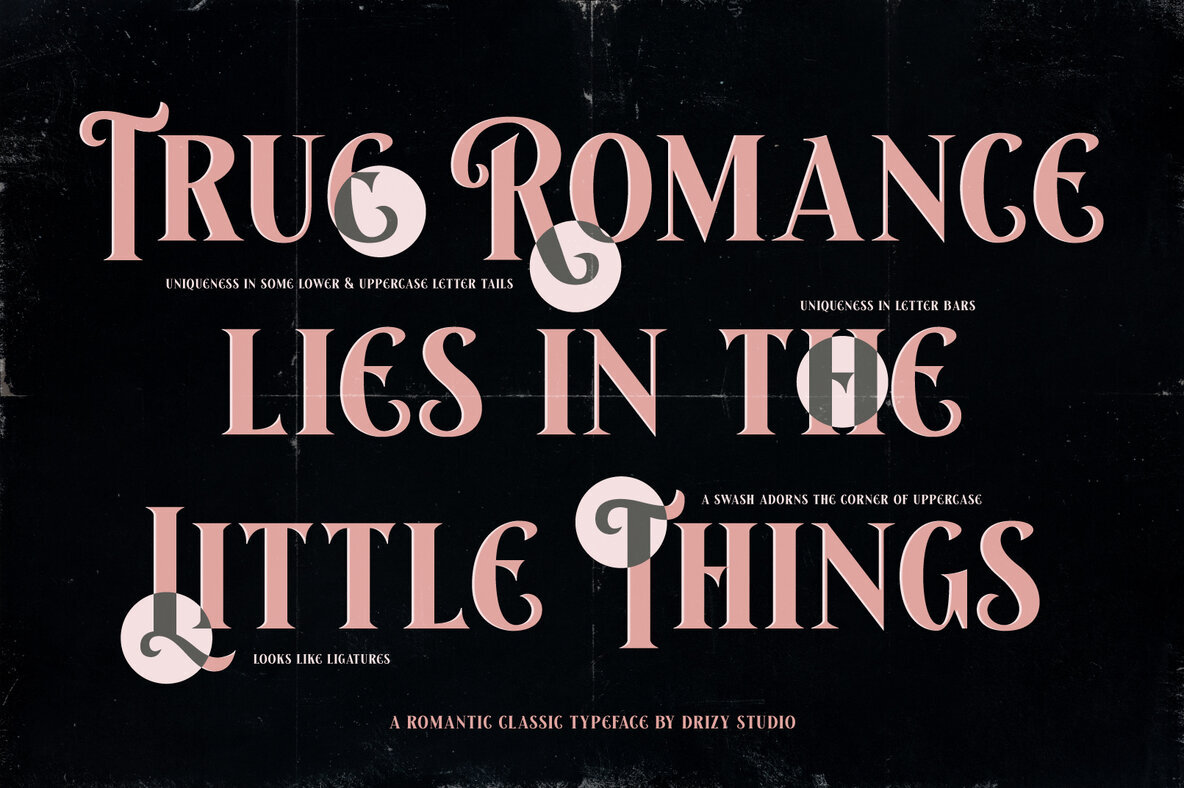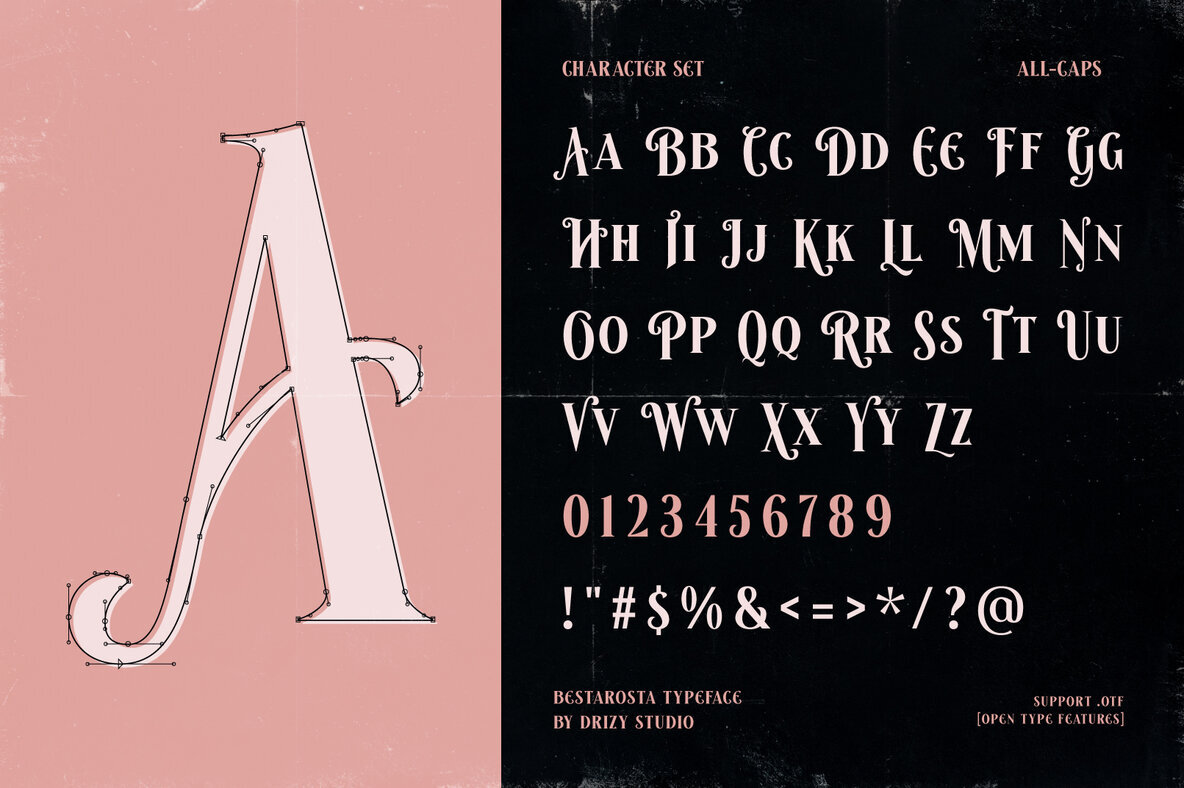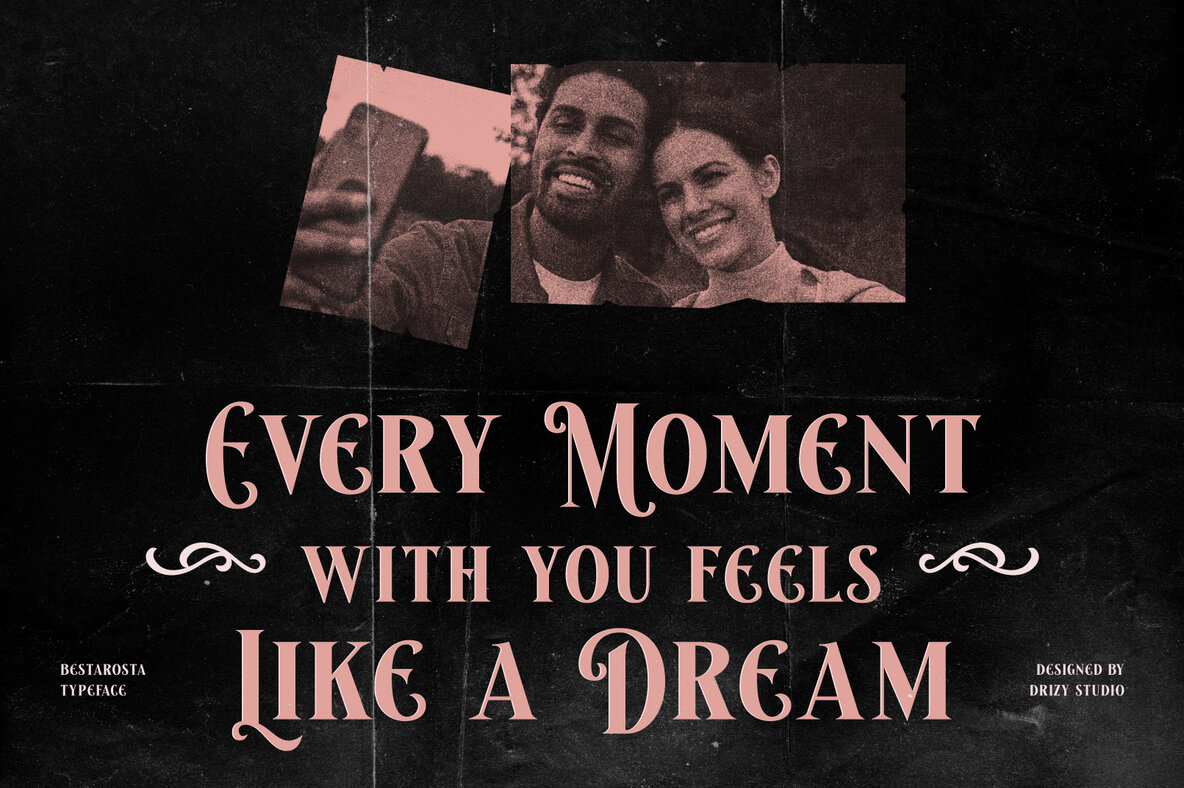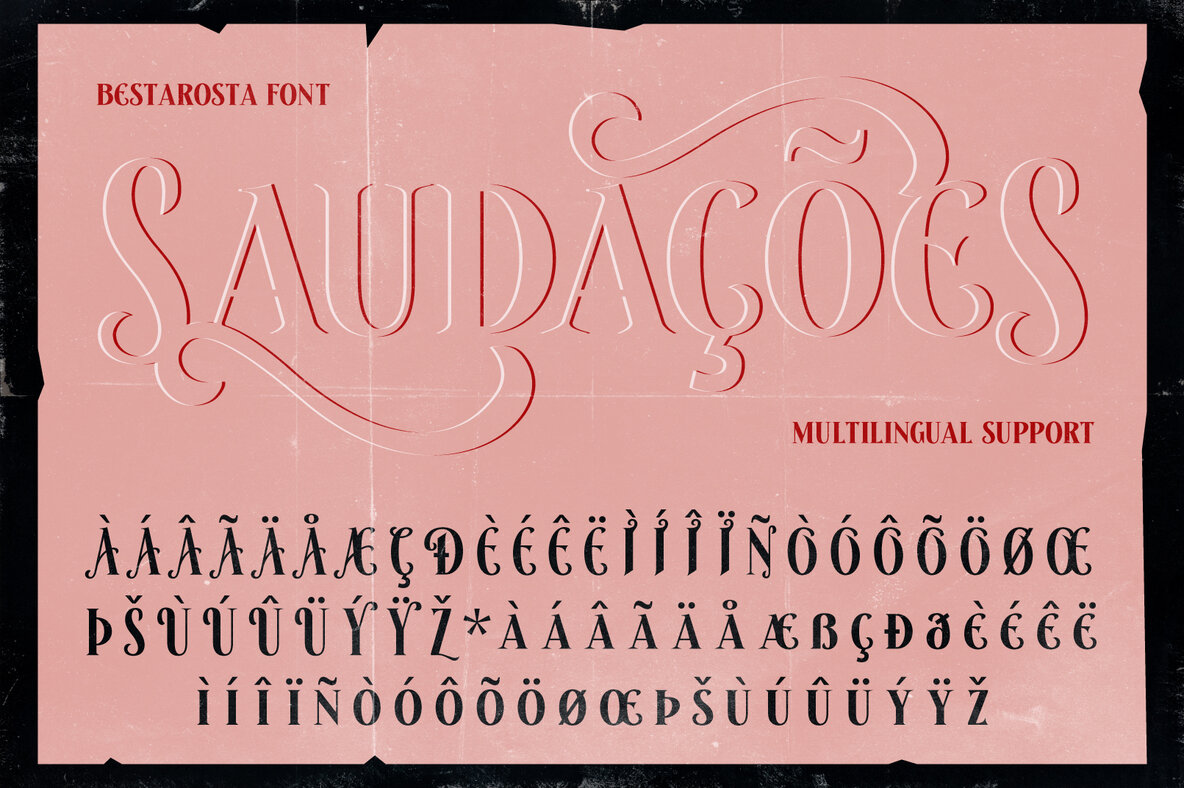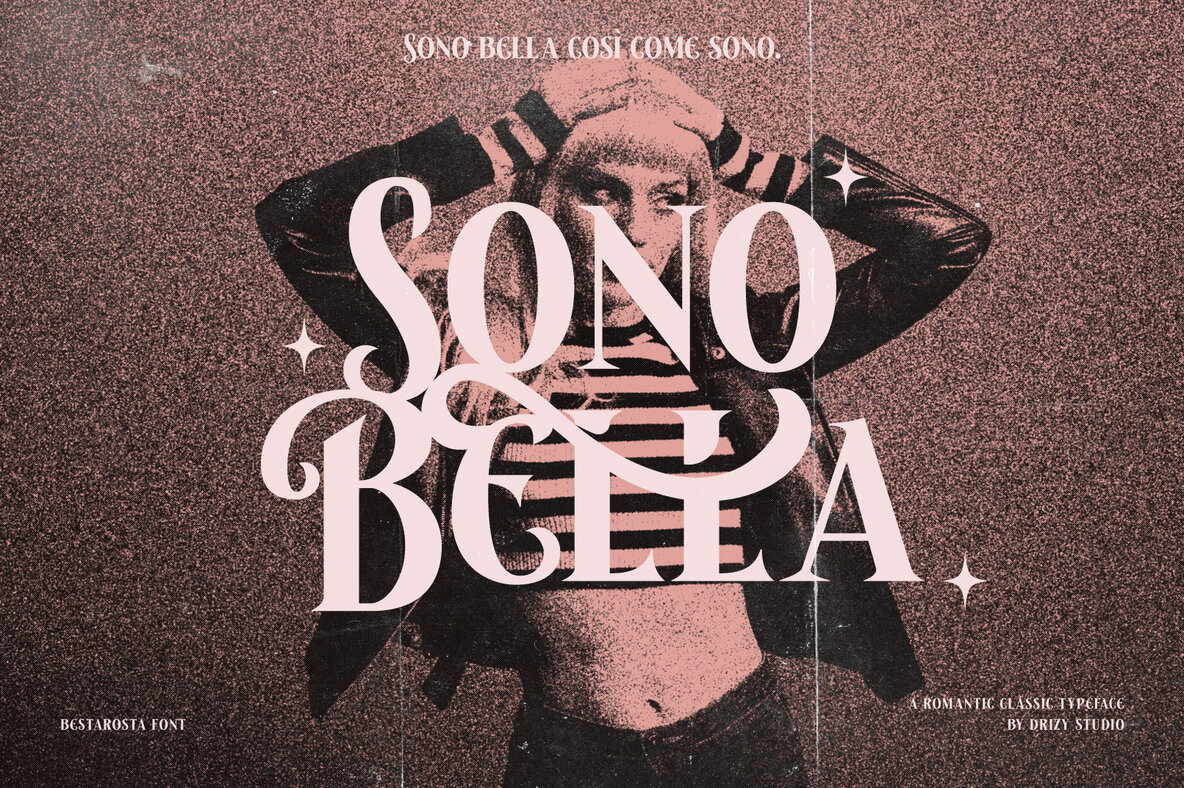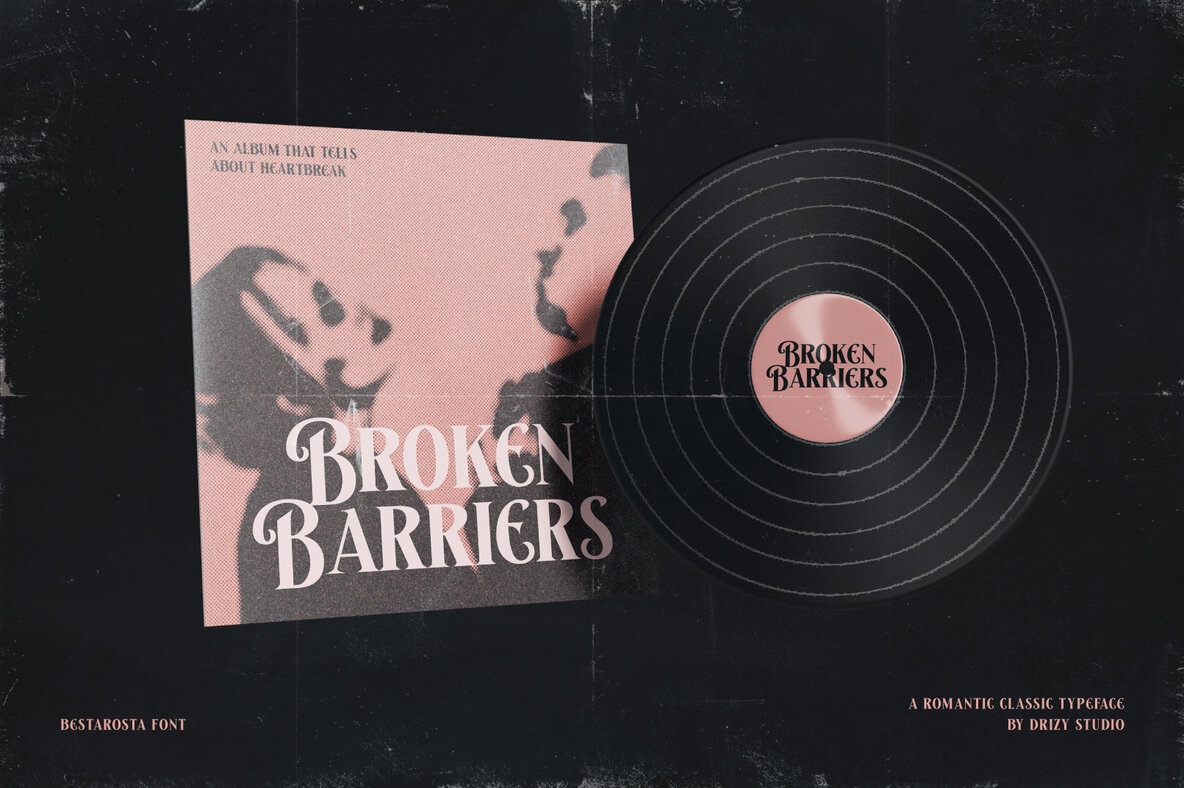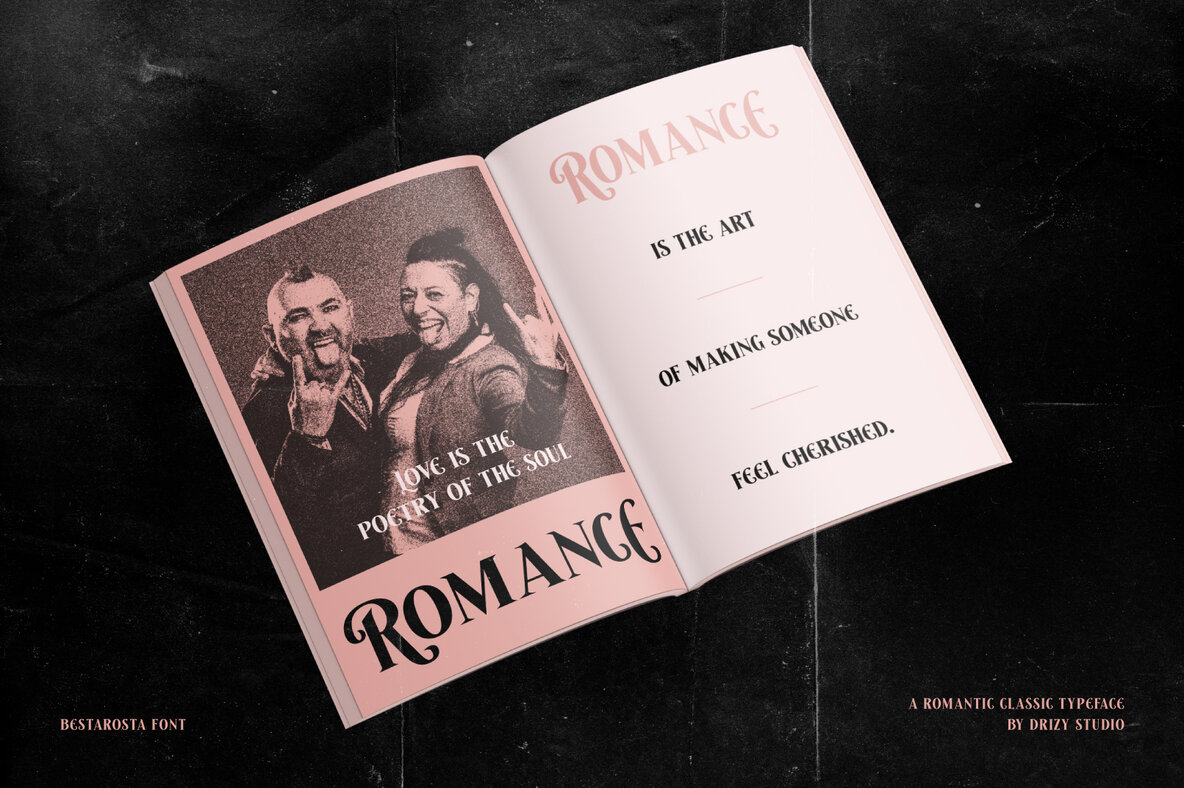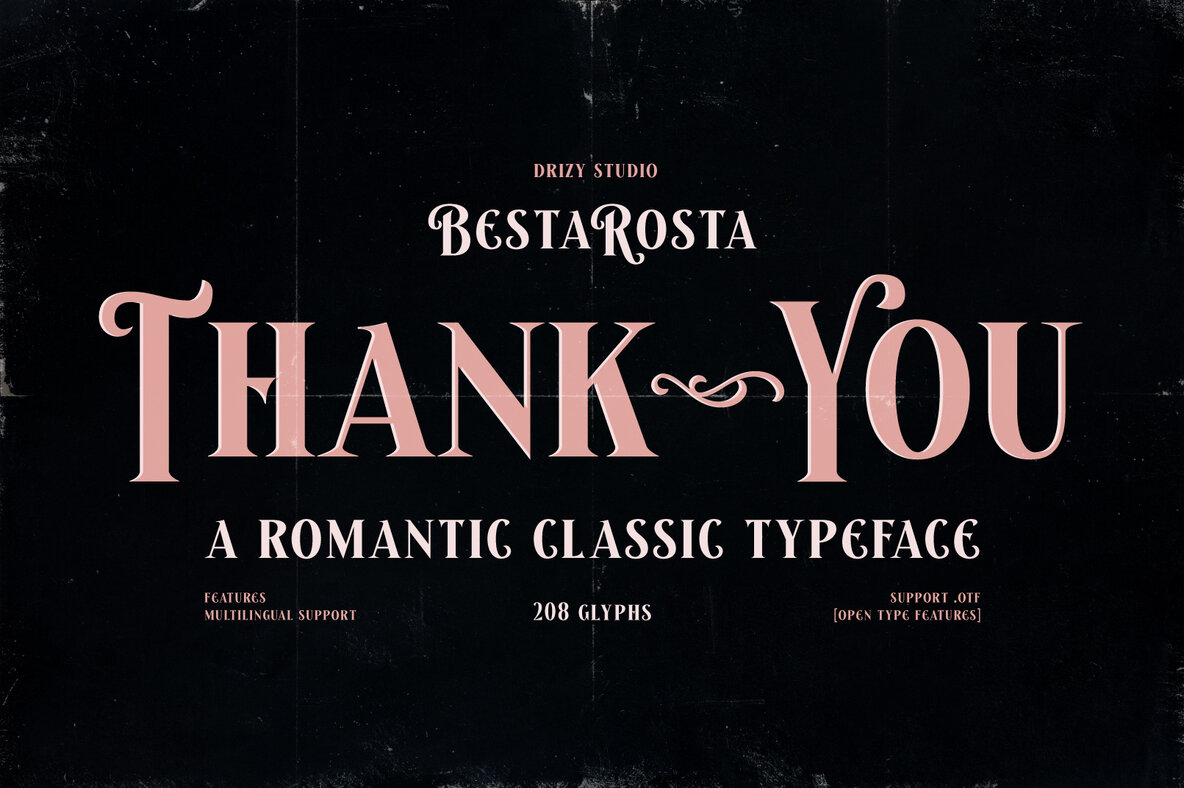
Besta Rosta Font
Besta Rosta Regular
Besta Rosta is a romantic, classic font from the Emo Romance collection that brings a touch of timeless elegance and sentimental warmth to your designs. Seamlessly combining classic serifs with gentle, romantic curves, it radiates charm and sophistication. This typeface is a perfect choice for various projects, including heartfelt wedding invitations, poetic love letters, dreamy social media visuals, and vintage-inspired branding. Its delicate details and harmonious flow offer a fusion of classic and modern styles, ideal for creatives aiming to express deep emotions in their work.
Besta Rosta includes an all-caps character set, making it versatile for various design needs. It also features punctuation, numbers, and supports multiple languages, ensuring it meets diverse creative requirements. Let this typeface convey the language of love in your most treasured stories and projects.